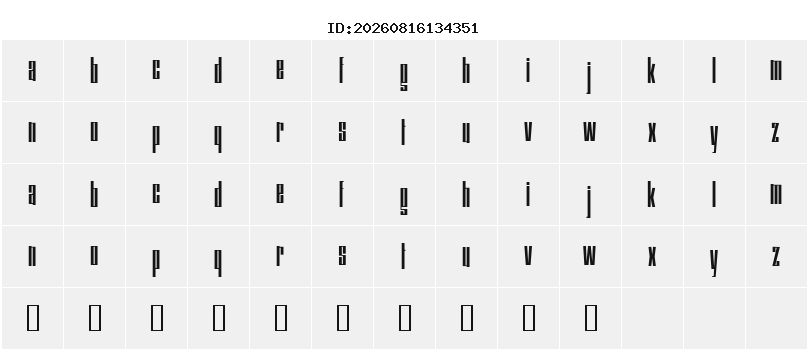
Squaresville Preview
• Font Name: Squaresville
• Full Font Name: Squaresville
About Squaresville.ttf
Squaresville.ttf is a modern, elegant sans-serif font designed for ultimate readability and visual harmony. Perfect for branding, headlines, web design, and print materials.